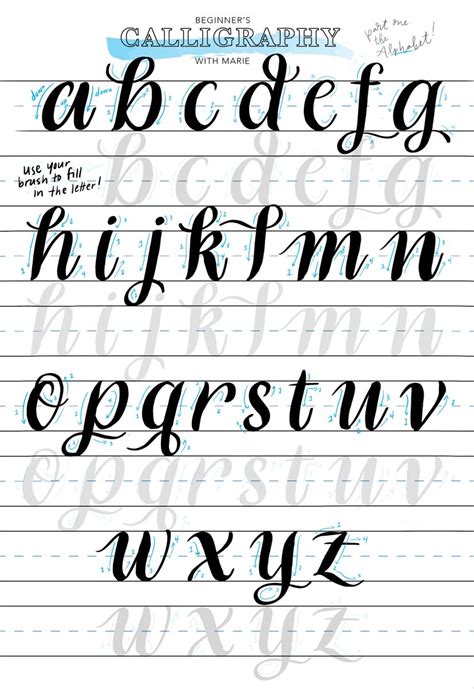
Modern Calligraphy Basics Let’s Learn our AaBbCc’s Lettering
Beginner Calligraphy Fonts. People commonly use the term. The different calligraphy styles are usually referred to as scripts.
The different calligraphy styles are usually referred to as scripts. People commonly use the term.
People commonly use the term. The different calligraphy styles are usually referred to as scripts.